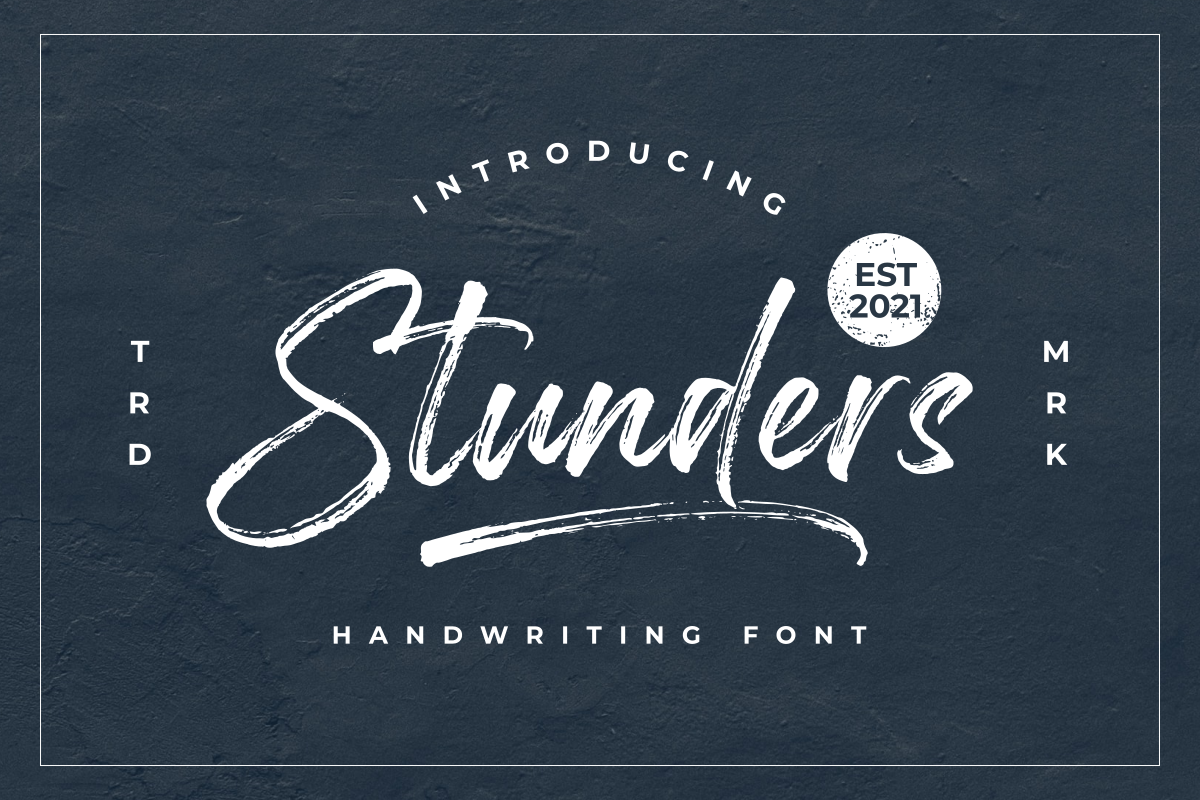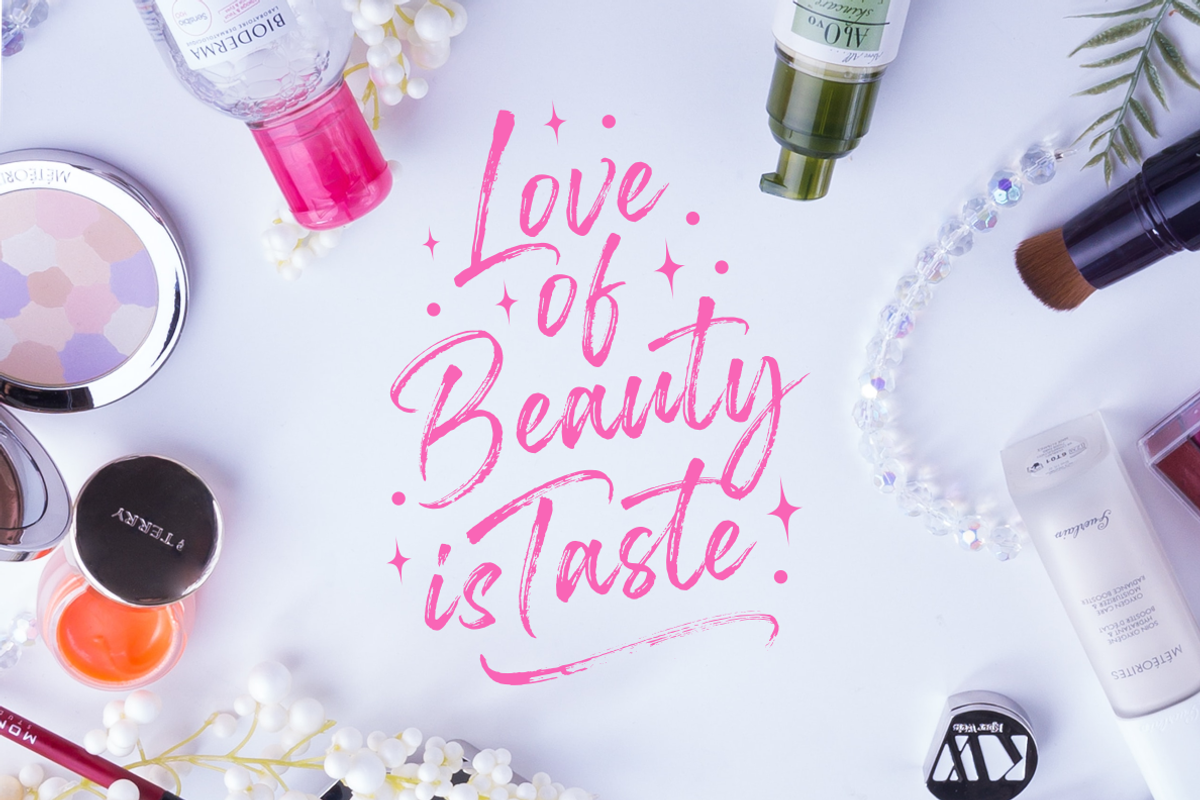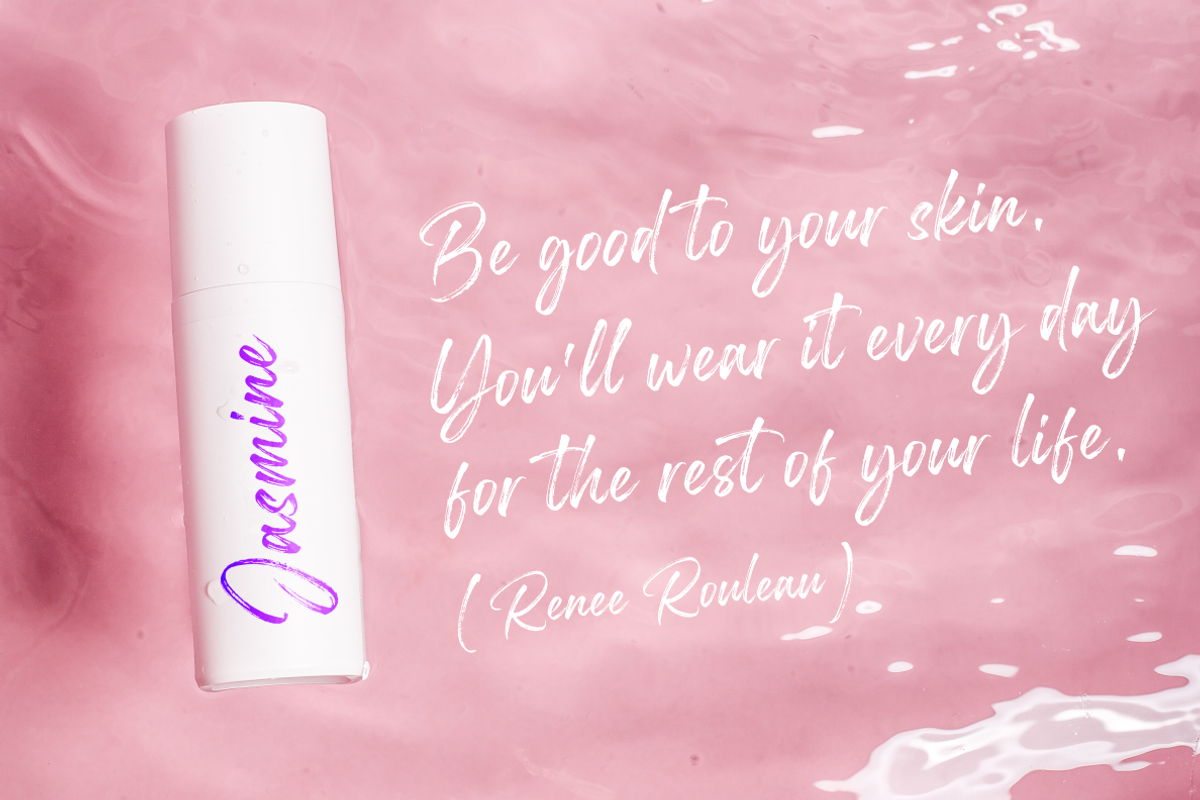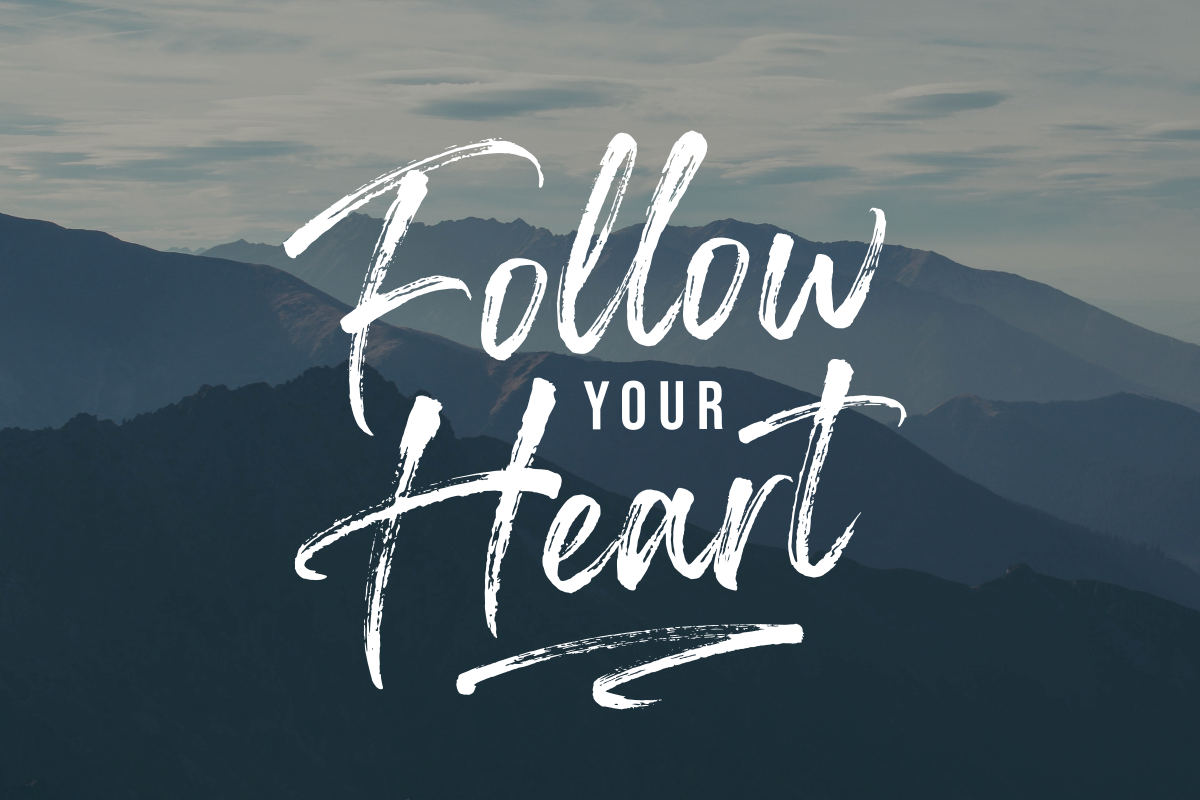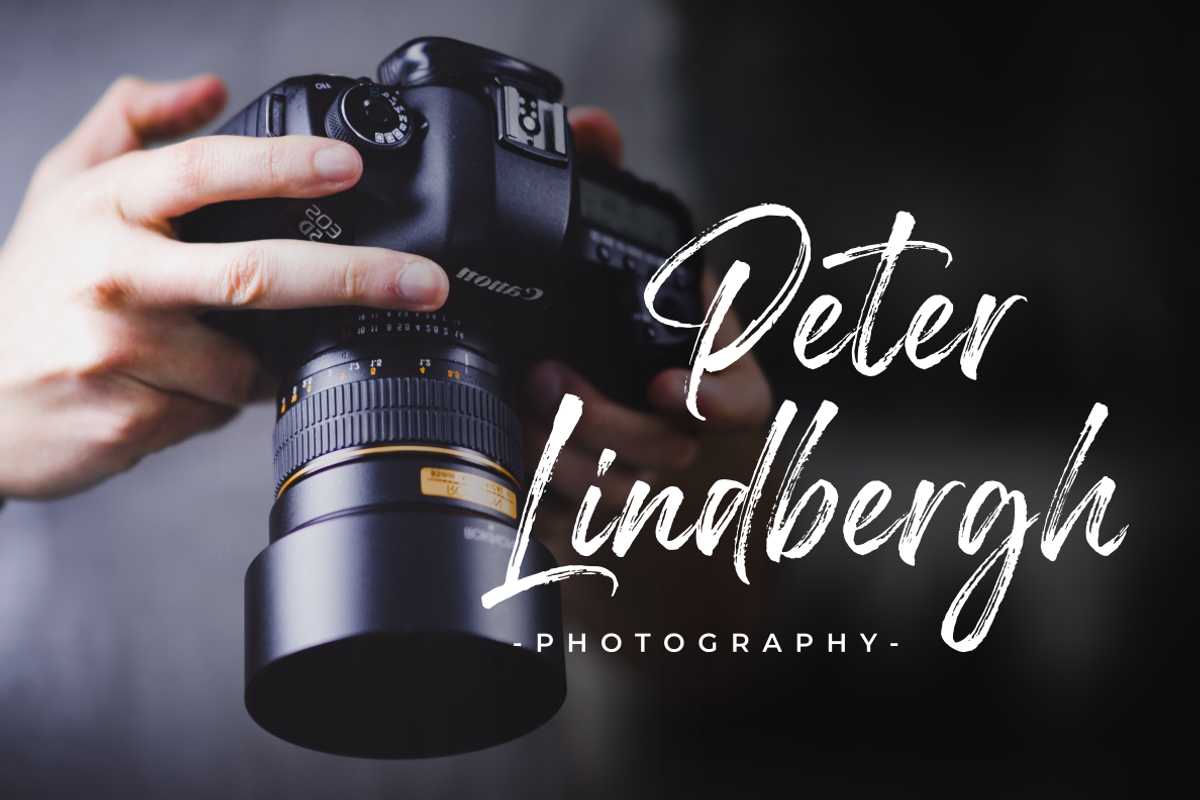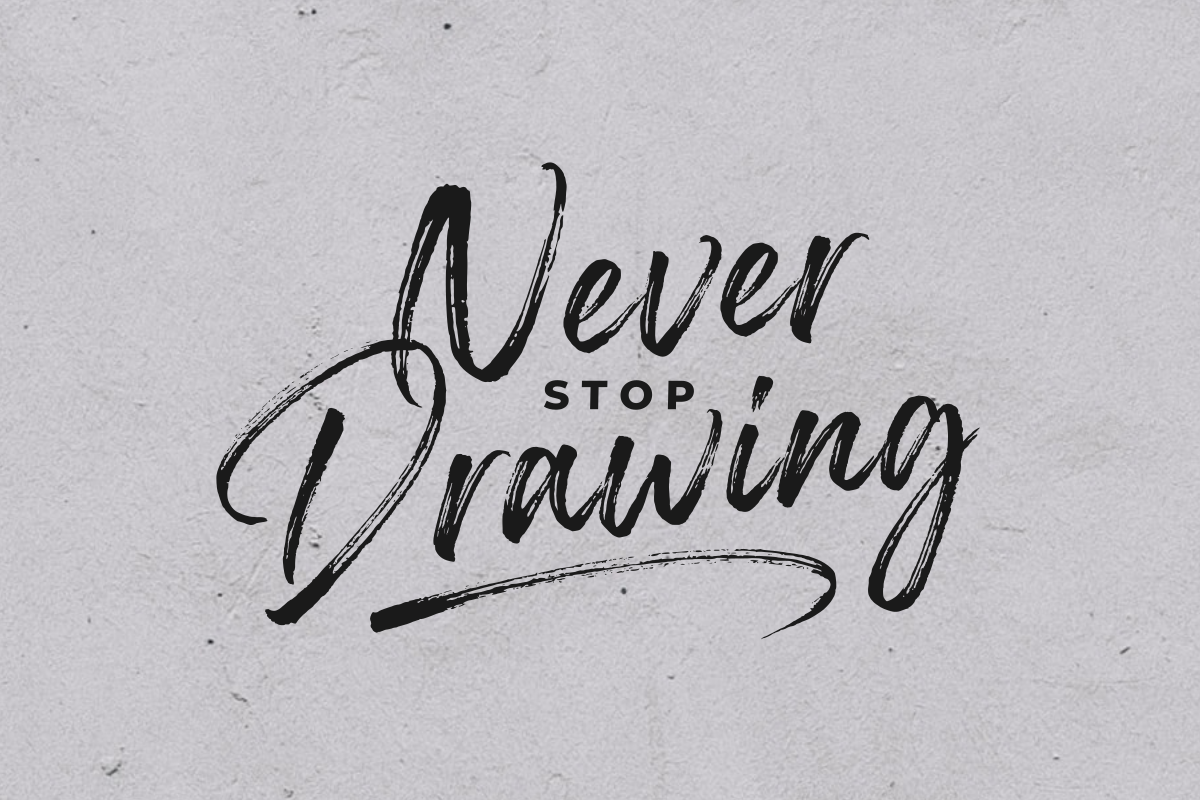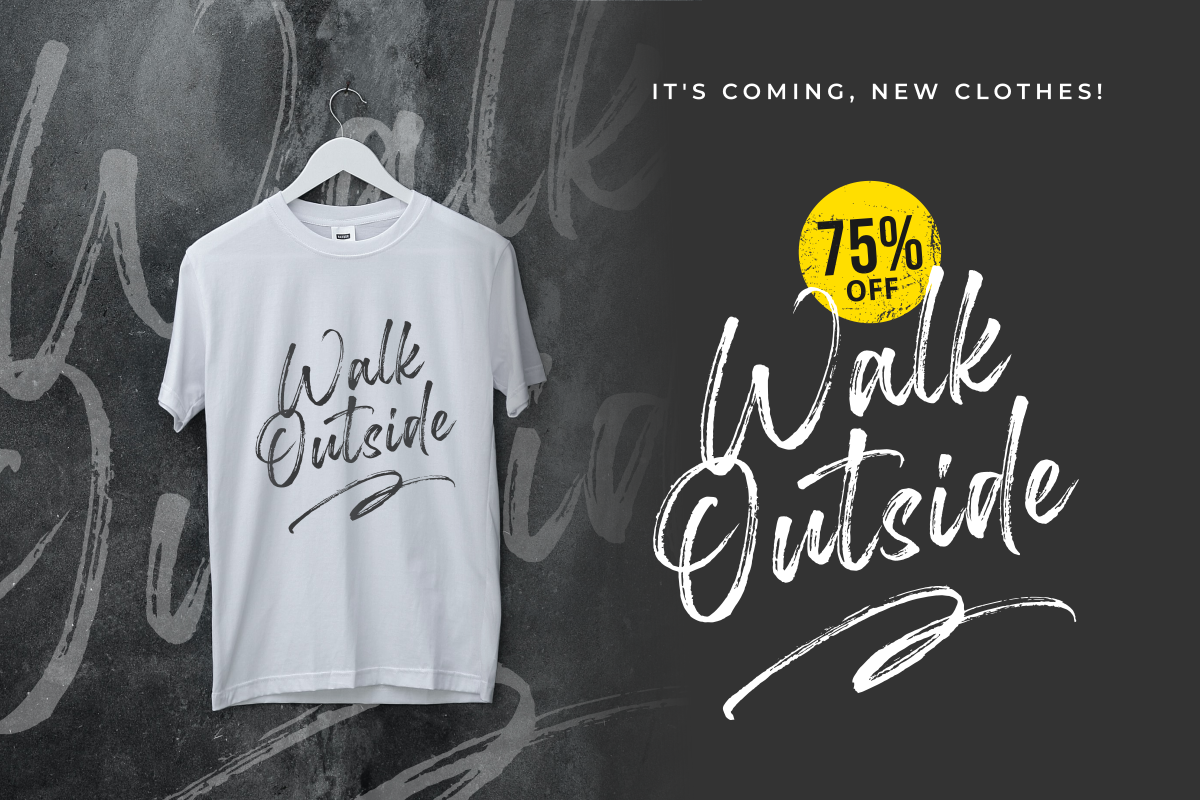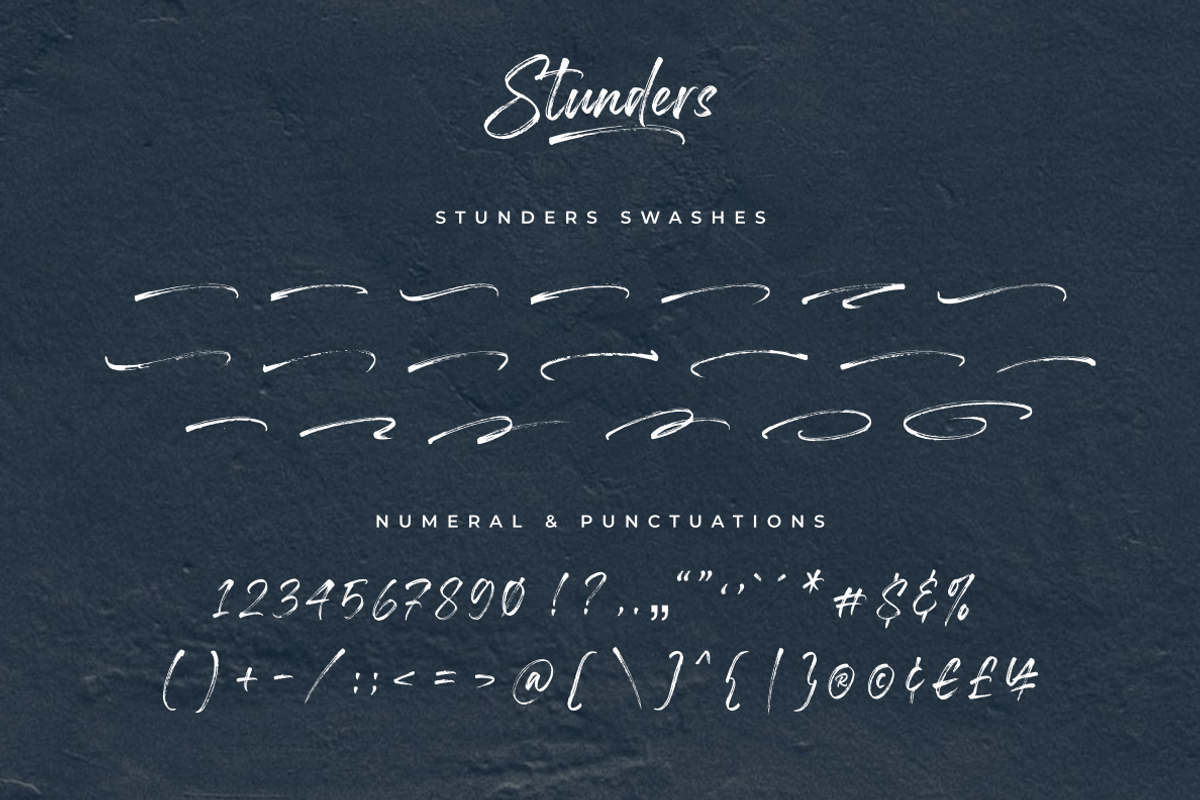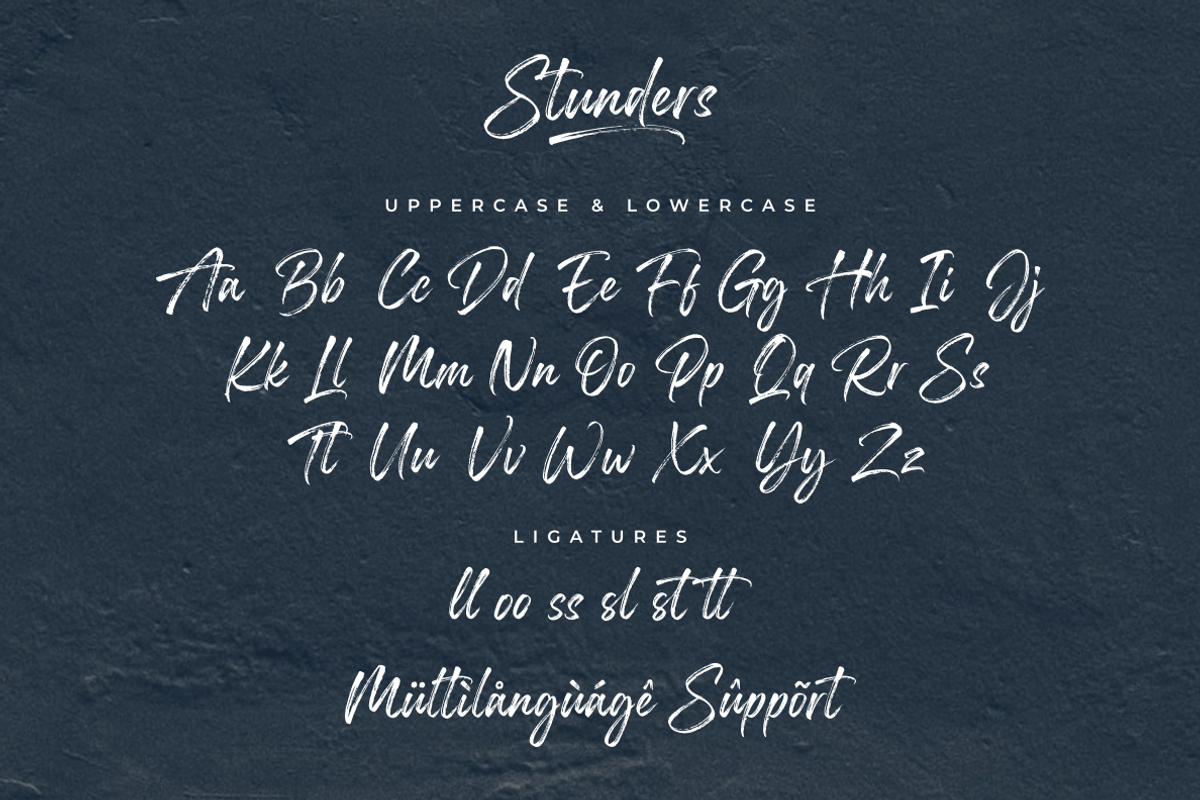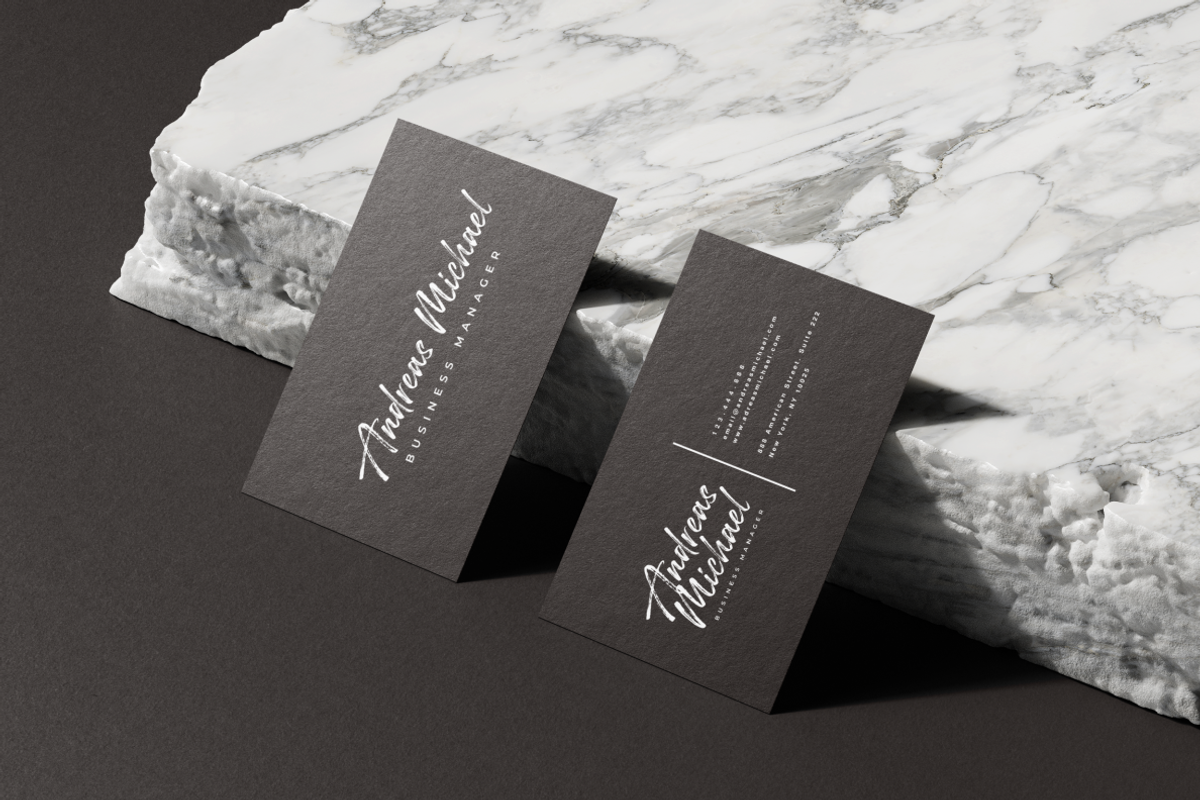
Stunders | Handwritten Brush Font
Stunders is a handwritten font with natural fast writing featuring a unique and distinctive texture. Stunders is perfect for branding, logos, product packaging, apparel, cards, quotes, and more for your amazing design!
Stunders family includes:
- Stunders Regular is a handwritten font containing upper & lowercase characters, numerals, and punctuation.
- Stunders Swash is a set of 20 textured swashes for the perfect, eye-catching finishing touch! You have to install it separately and type in the A-T characters and you will get it!